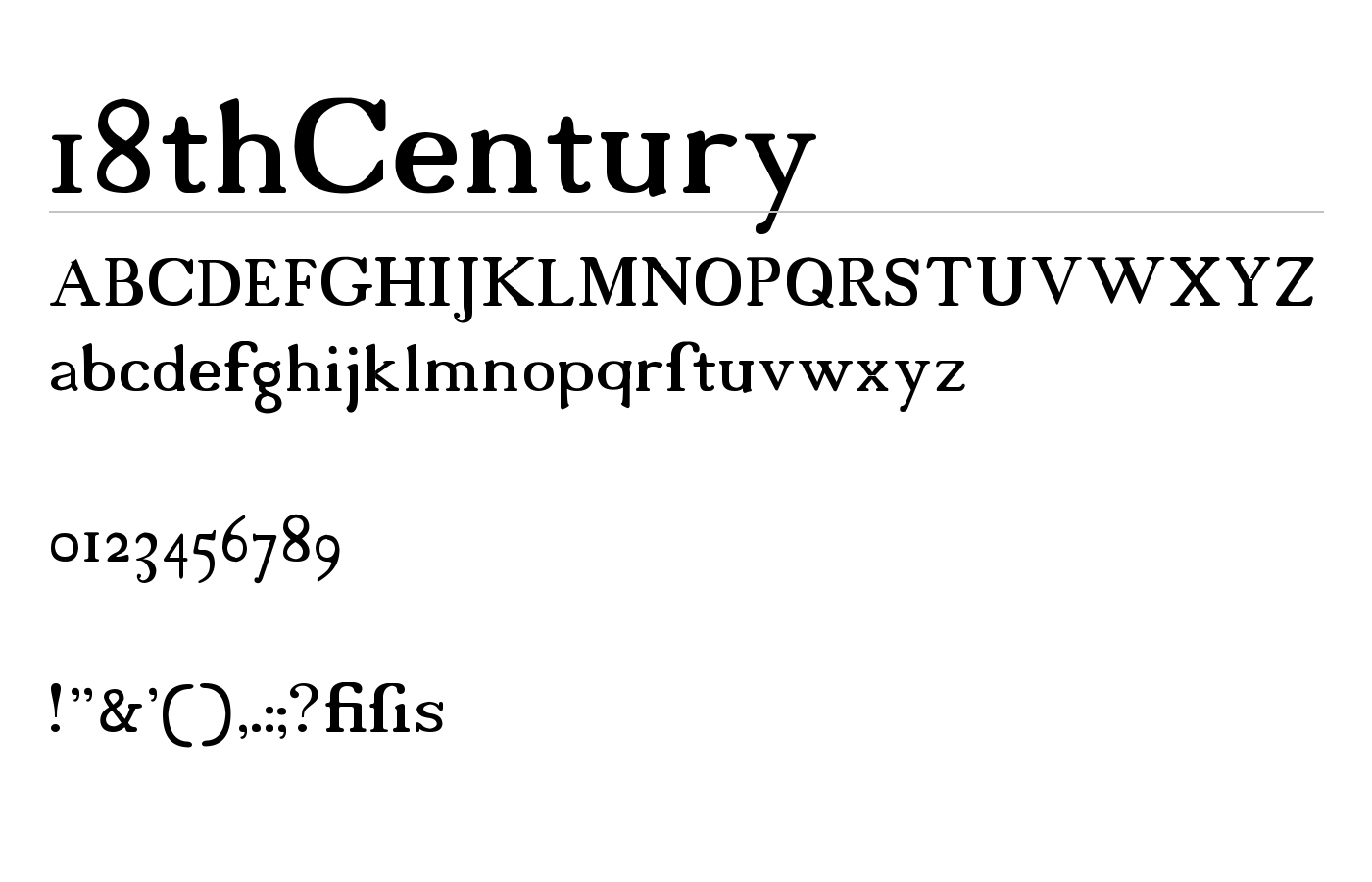
18thCentury is a serif typeface with a classic, old-style design reminiscent of traditional 18th-century printing. It features elegant bracketed serifs, moderate contrast between thick and thin strokes, and distinctive letterforms that convey a vintage, scholarly feel. This font is ideal for historical documents, editorial work, and branding that seeks to evoke timeless sophistication and heritage.
18thCentury Font